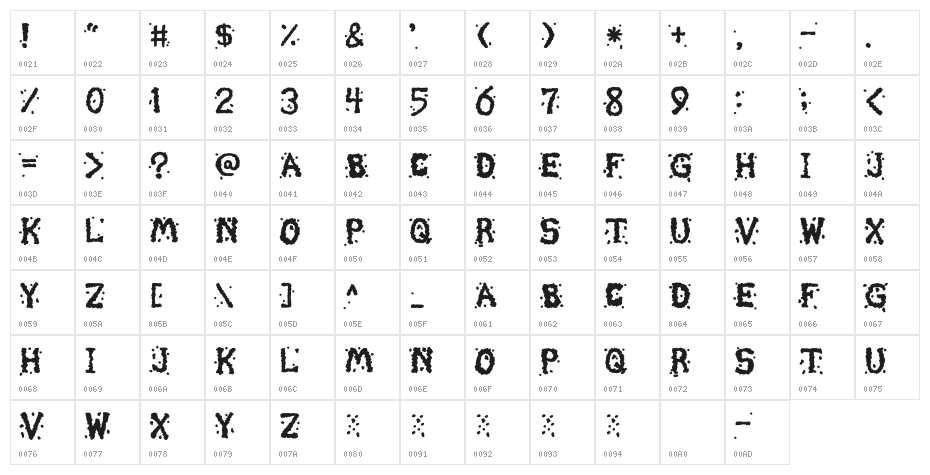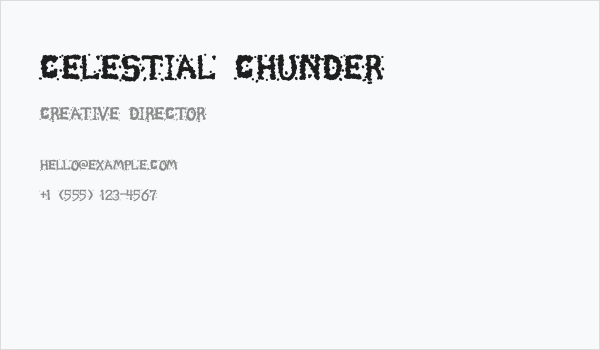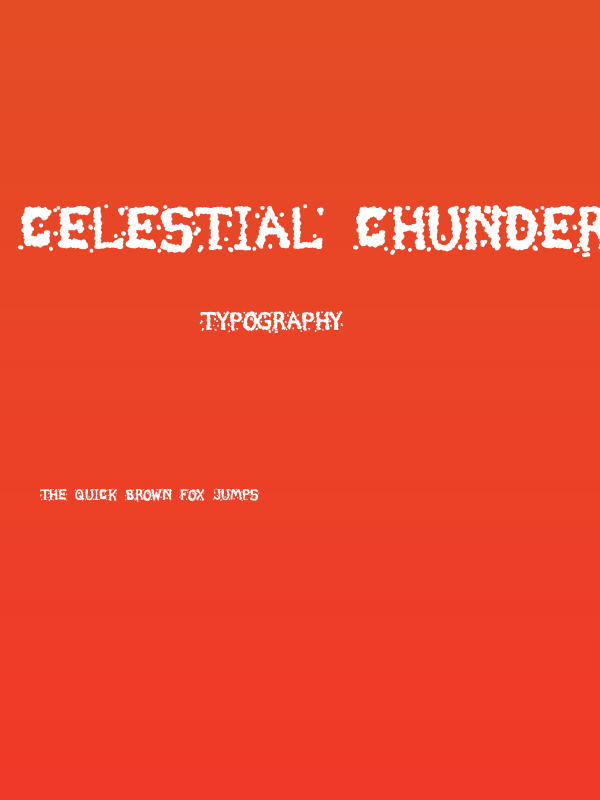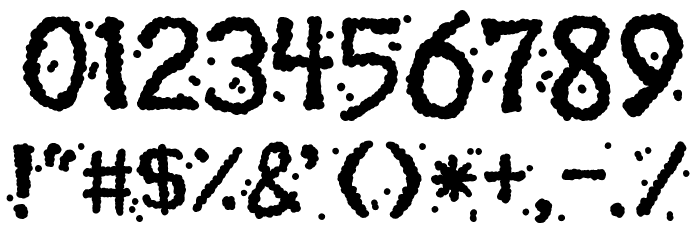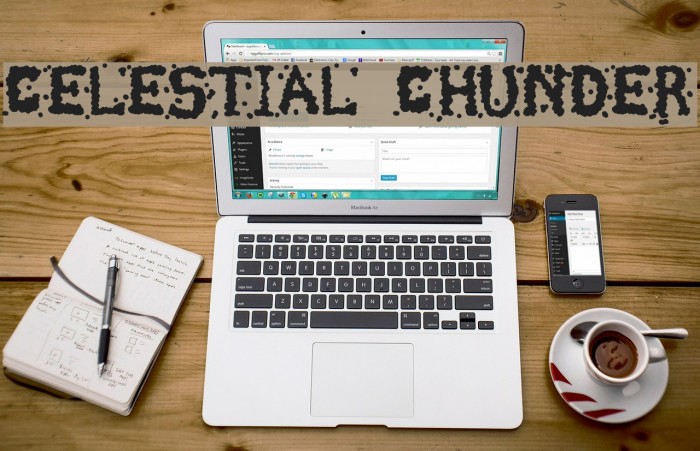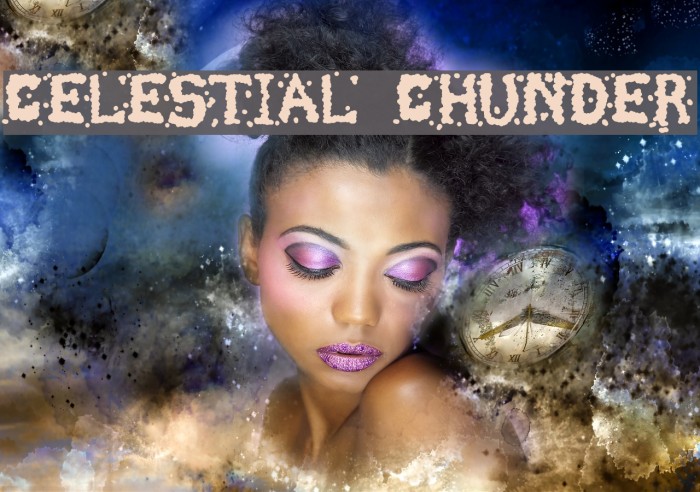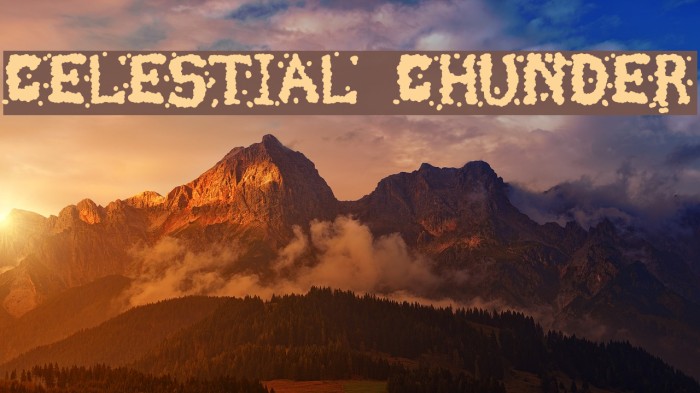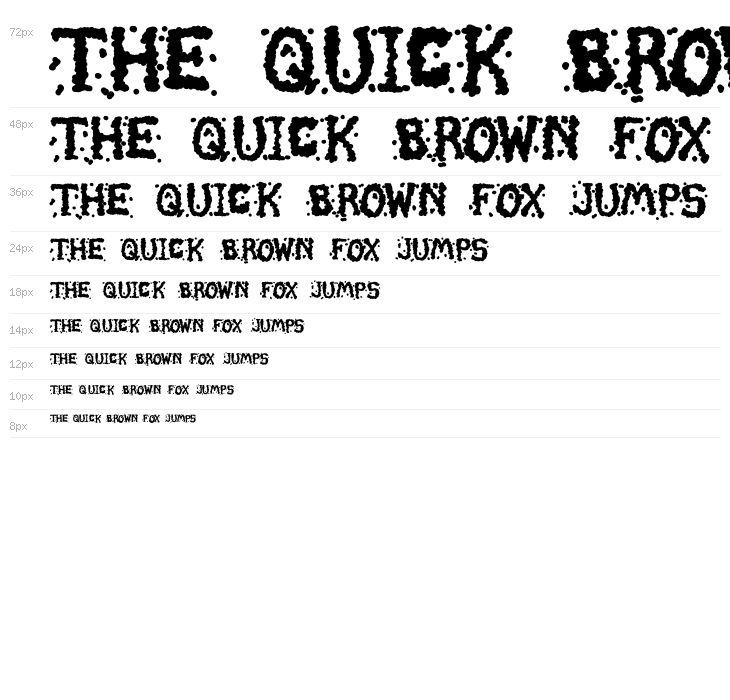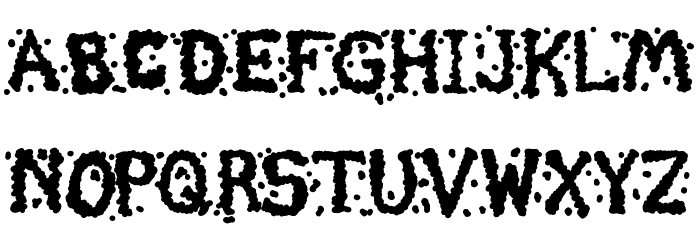
Celestial Chunder Font
Celestial Chunder Description
This font features a unique and playful design with a speckled, textured appearance that resembles splattered ink or paint. The characters are bold and have a slightly irregular shape, giving them a handcrafted feel. The overall look is dynamic and eye-catching, making it suitable for creative and artistic projects. The uppercase and lowercase letters maintain a consistent style, while the numbers and special characters are equally distinctive, ensuring a cohesive look across all text elements.
| Proposed Projects | Ideal for artistic projects, posters, album covers, and creative branding. |